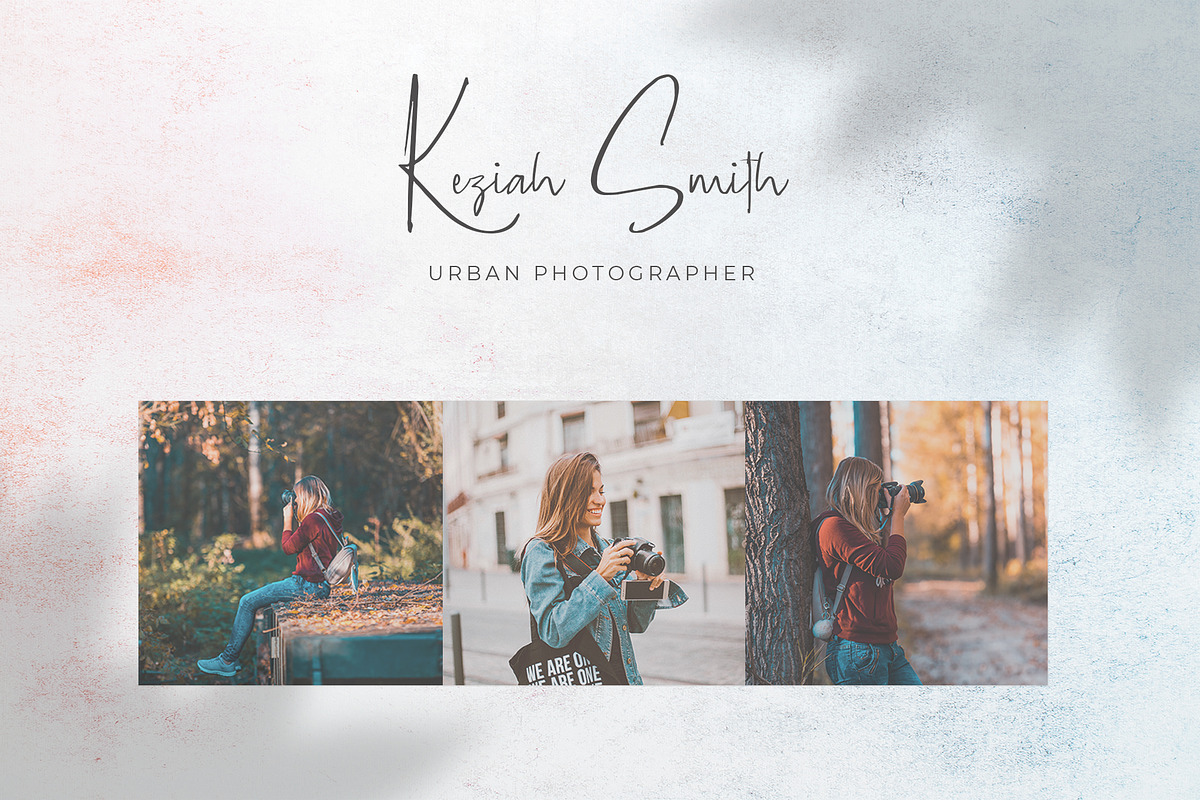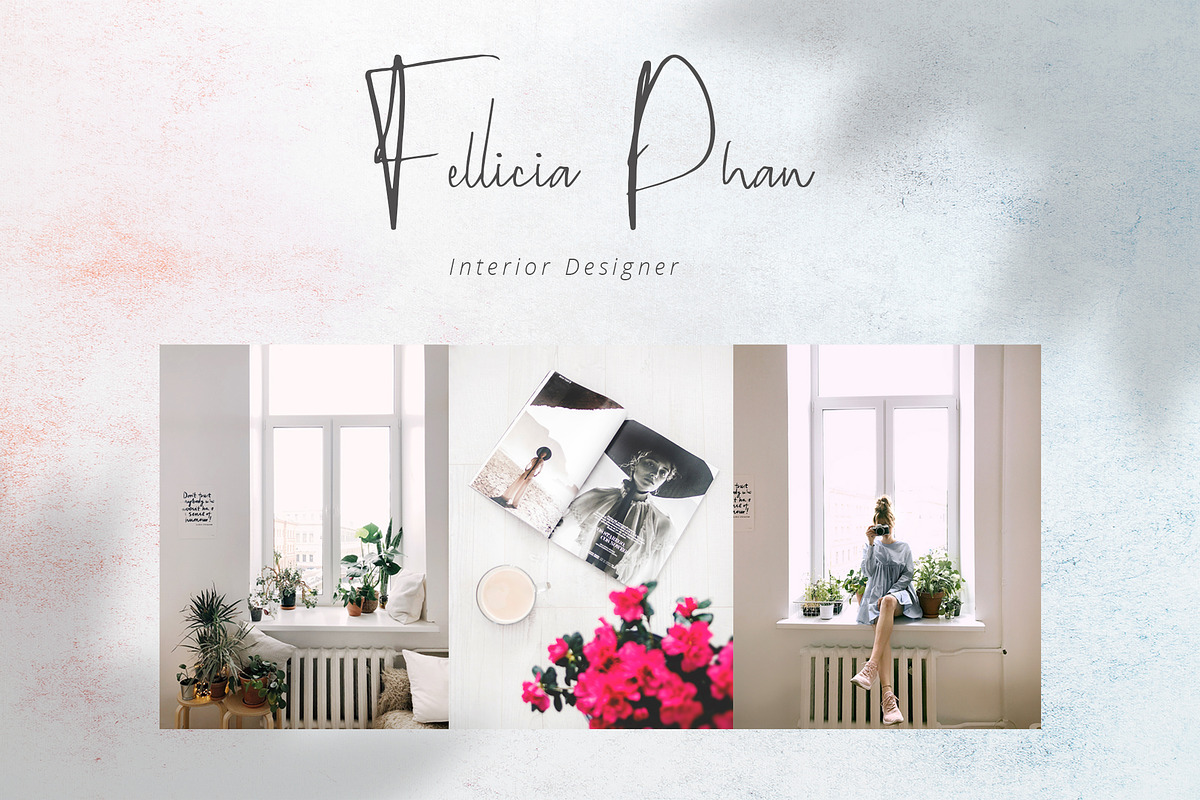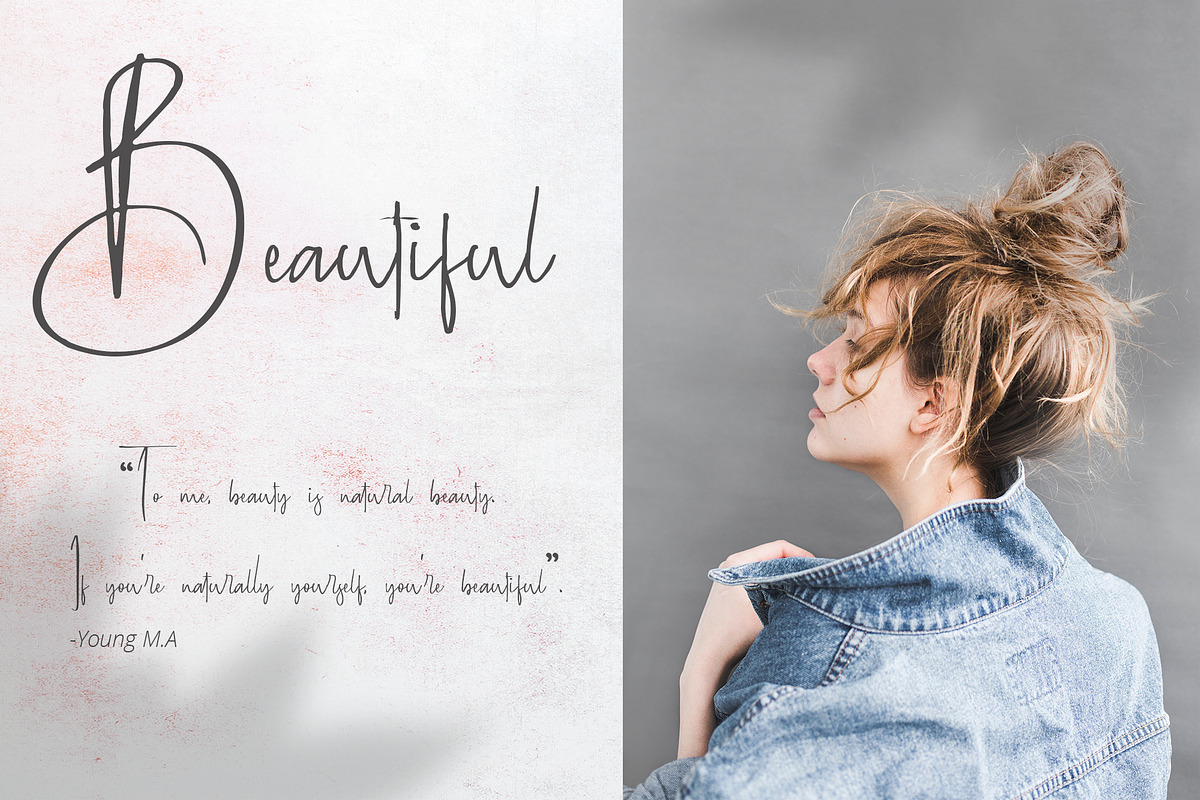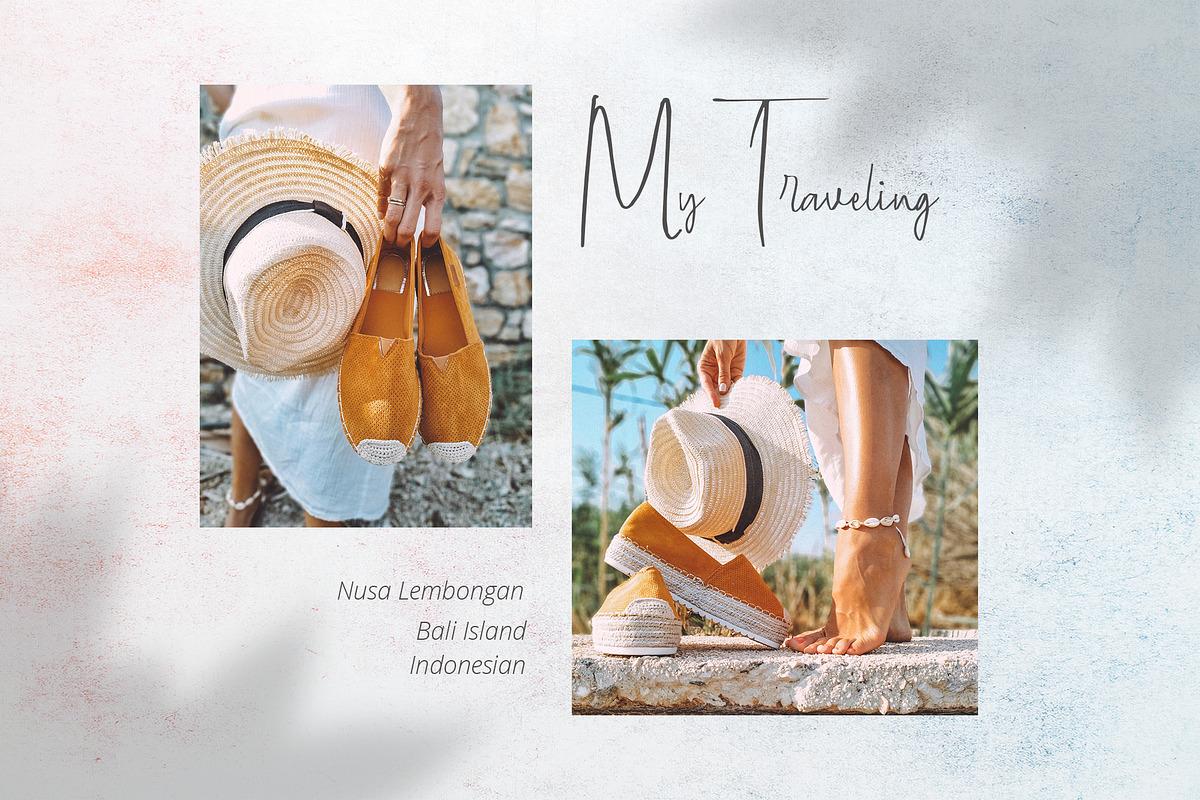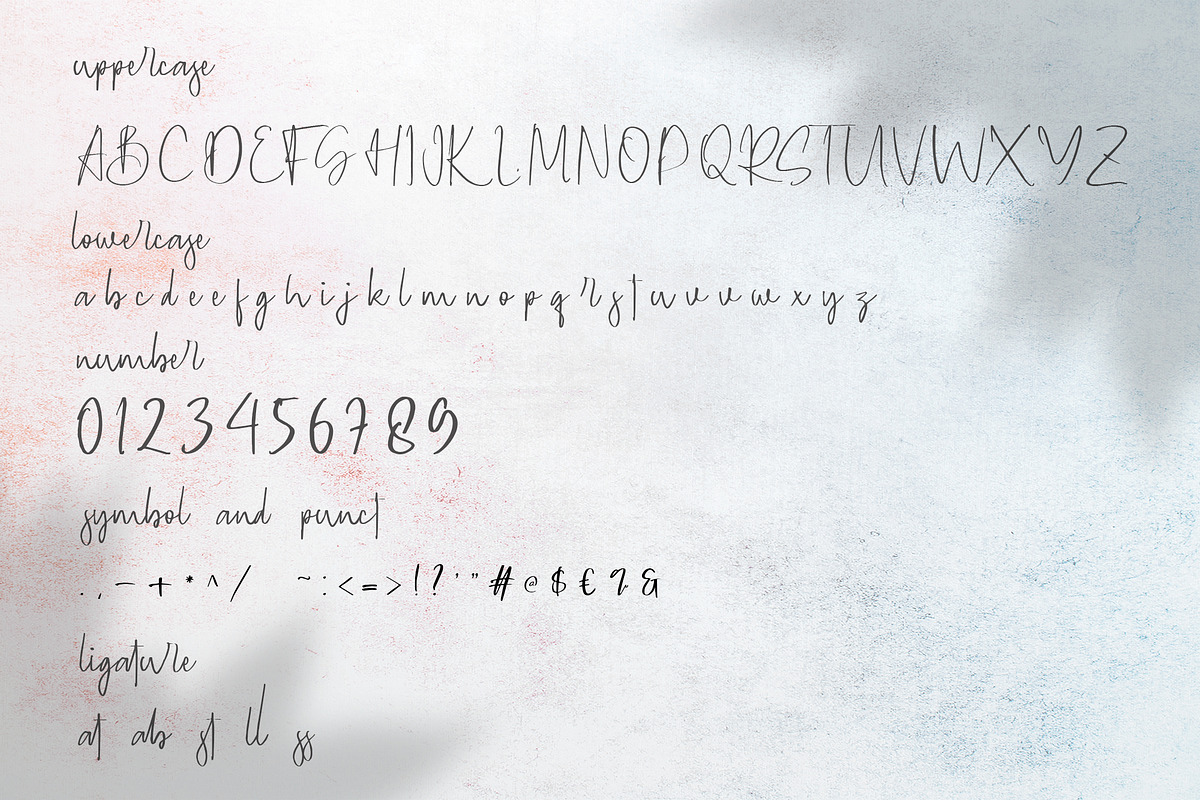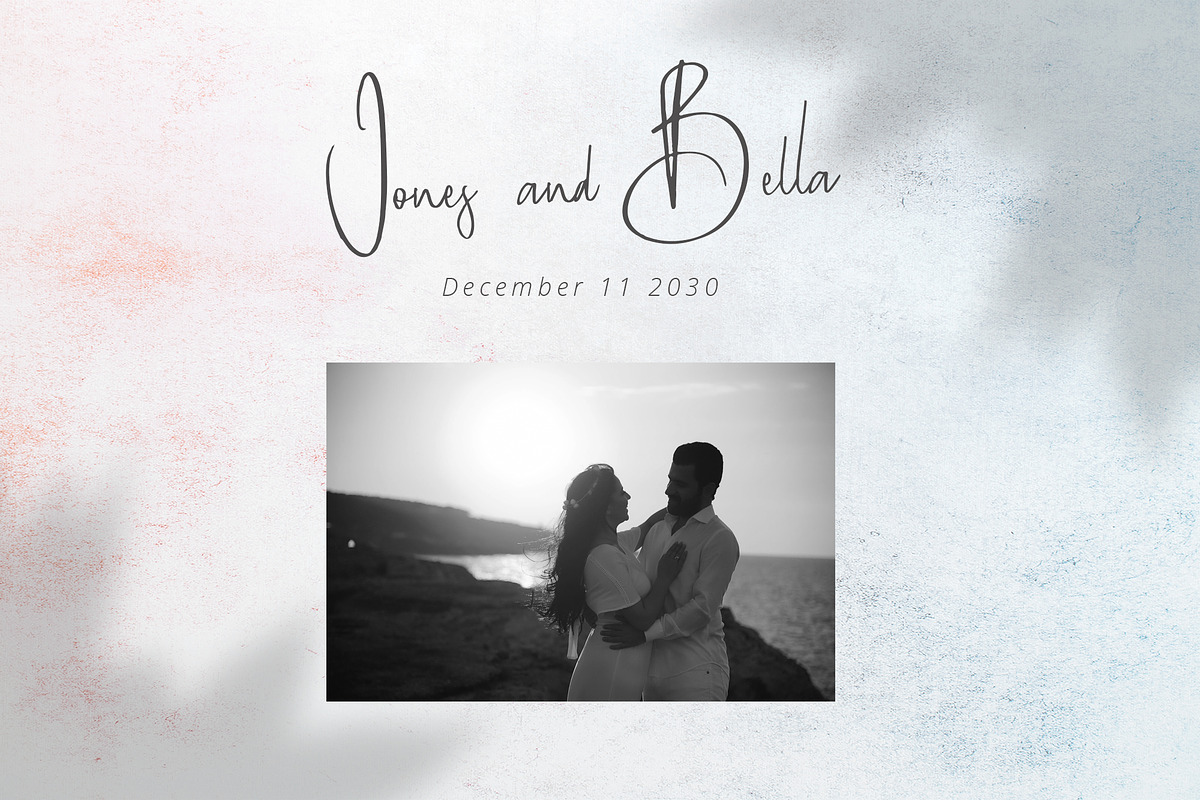
Geovanice - Casual Signature Font
Introducing Geovanice - Casual Signature Font
This Font can be used for any variety of purposes, such as: Photography, Wedding Ceremony, Birthday Invitation, Fashion, Logo Type, Branding Design, Signature and also can be used for personal purpose.
- This Font Template contains Modern, Elegant, Creative, Professional, Feminim and Unique Concept.
Why Geovanice - Casual Signature Font is worth a look
Geovanice - Casual Signature Font by StringLabs fits naturally into Branding, posters, packaging, typography.